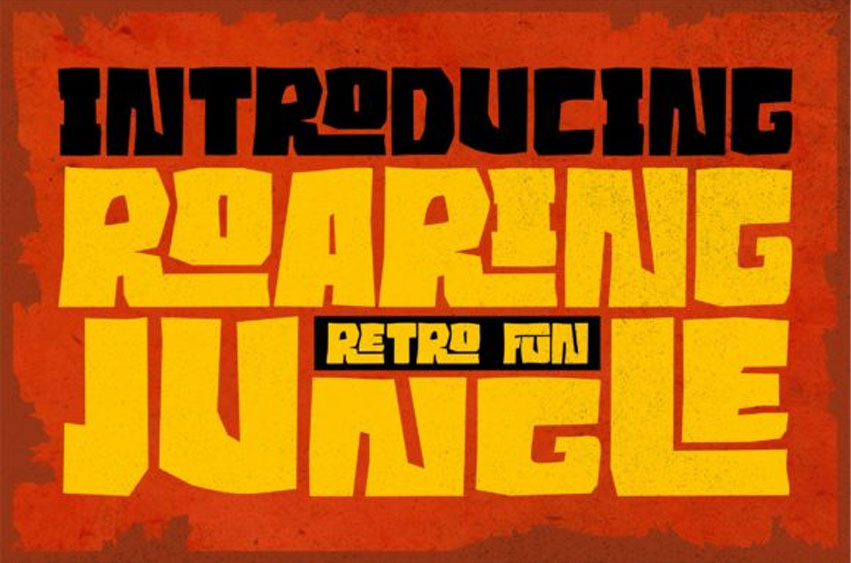
Roaring Jungle Font is a unique font that is perfect for all your vintage and retro projects.
It will make your posters and flyers stand out with its amazing style.